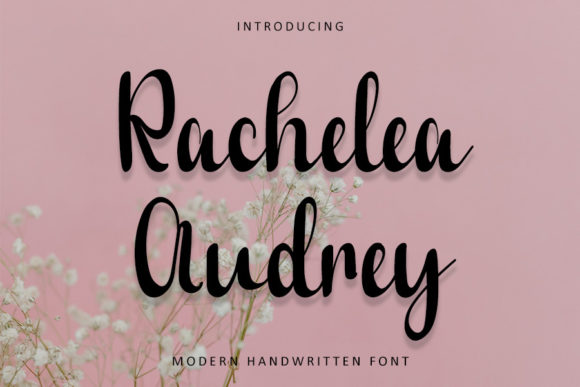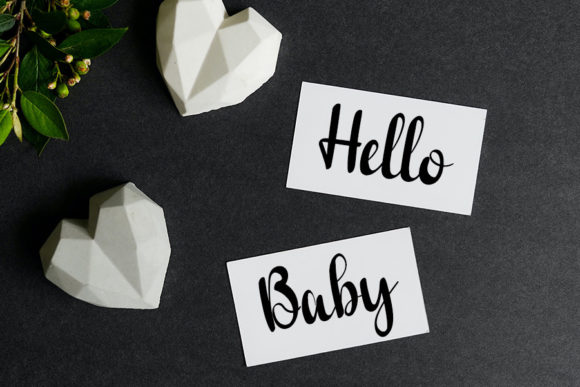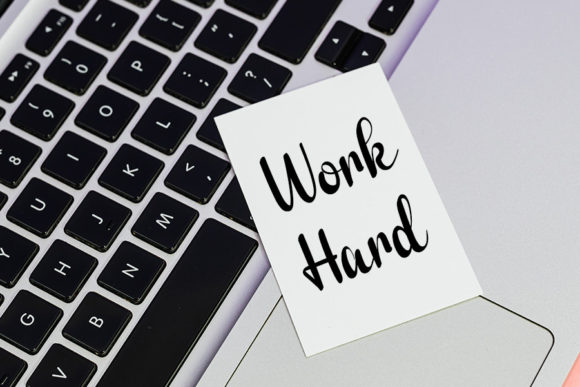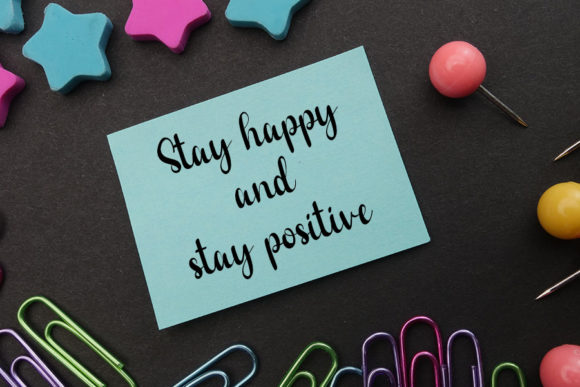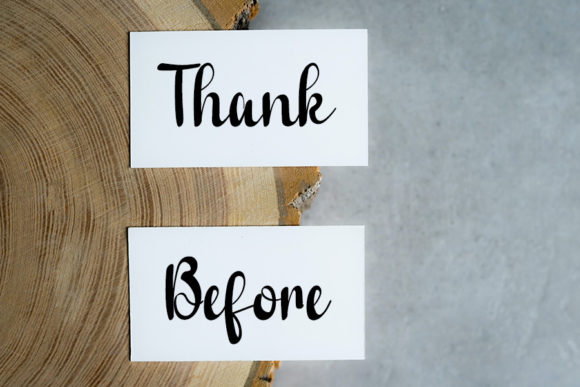
Rachelea Audrey Font
About Rachelea Audrey Font
“Rachelea Audrey” is a trendy handwritten font that combines a contemporary atmosphere with impeccable form, drawing inspiration from timeless classic calligraphy. This font is crafted to infuse elegance and class into a wide range of design projects, making it a versatile choice for various creative endeavors.
The contemporary vibe of “Rachelea Audrey” enhances its adaptability, allowing it to seamlessly fit into different design contexts. Whether used for branding, logos, invitations, or any other creative project, this font adds a touch of sophistication to your designs.
The handwritten nature of the font brings a personal and authentic feel, while its contemporary style ensures that it aligns with modern design preferences. “Rachelea Audrey” is designed to cater to diverse design needs, making it suitable for writing various kinds of products and adapting to the specific requirements of each project.
In summary, “Rachelea Audrey” is more than just a font; it’s a trendy and elegant design asset that elevates your projects with a contemporary yet timeless aesthetic. Whether applied to branding or various design needs, “Rachelea Audrey” brings an element of elegance and class to every project it graces.